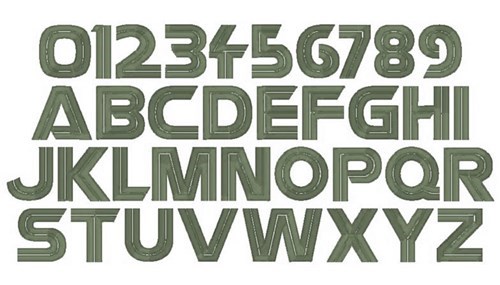
Easy Embroidery is happy to present Space Wars Embrilliance Font - Bold Decorative Style - BX font machine embroidery font which has Bold, decorative machine embroidery font with sharp angles and geometric shapes, ideal for creating standout designs on banners or costume pieces. Available in BX font and Embrilliance formats. included. If you would like to view more embroidery fonts and alphabets please search our embroidery fonts page.
Space Wars Embrilliance Font - Bold Decorative Style - BX font